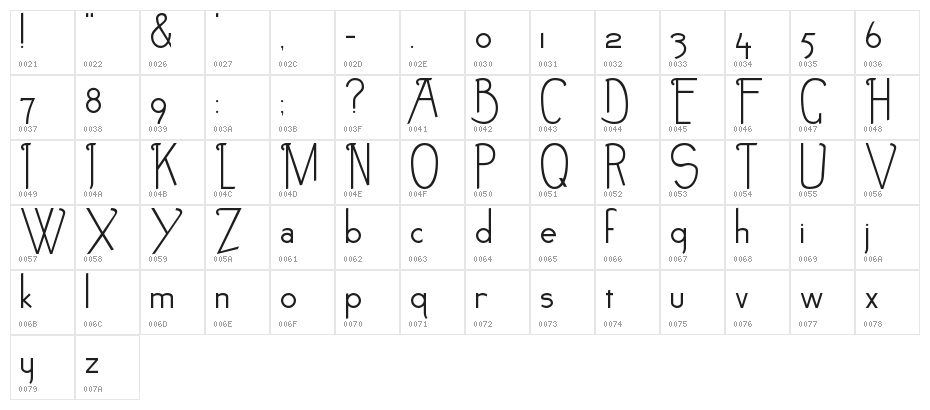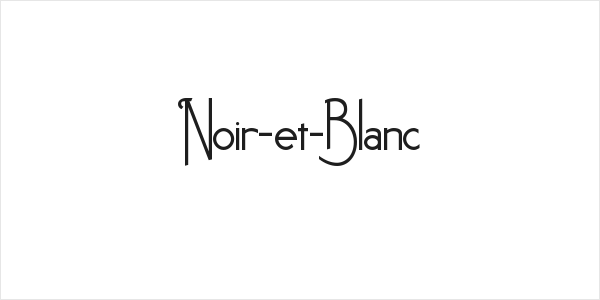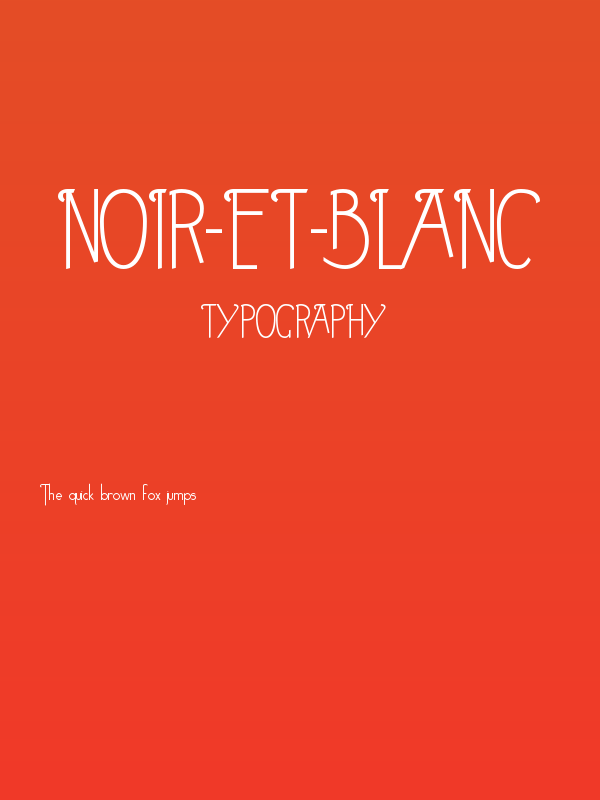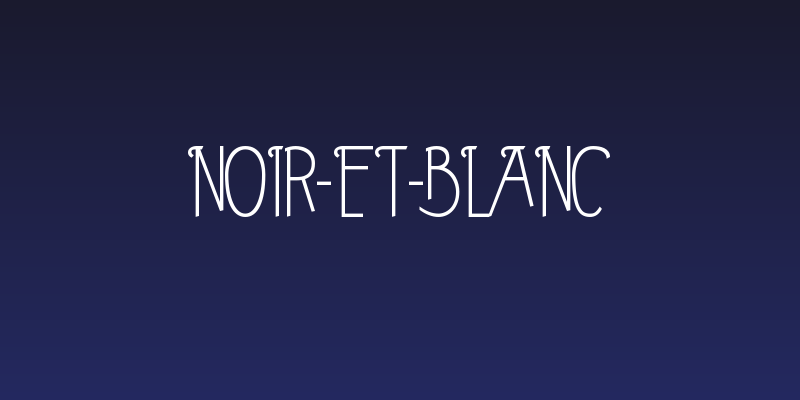
Noir-et-Blanc Font
Noir-et-Blanc Description
This font features a unique blend of elegance and modernity, with its thin, elongated uppercase letters and more rounded, geometric lowercase characters. The uppercase letters have a distinct Art Deco influence, characterized by their tall, narrow forms and subtle curves at the terminals. The lowercase letters, in contrast, are more contemporary, with clean lines and a slightly wider stance. The numerals are consistent with the lowercase style, offering a harmonious balance. Special characters maintain the overall aesthetic, ensuring a cohesive look across all text elements.
| Proposed Projects | Ideal for branding, editorial design, and luxury product packaging. |